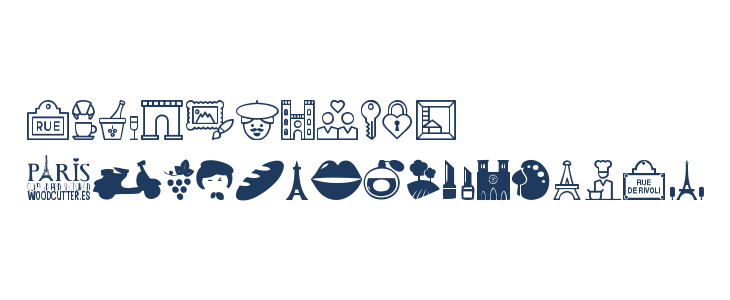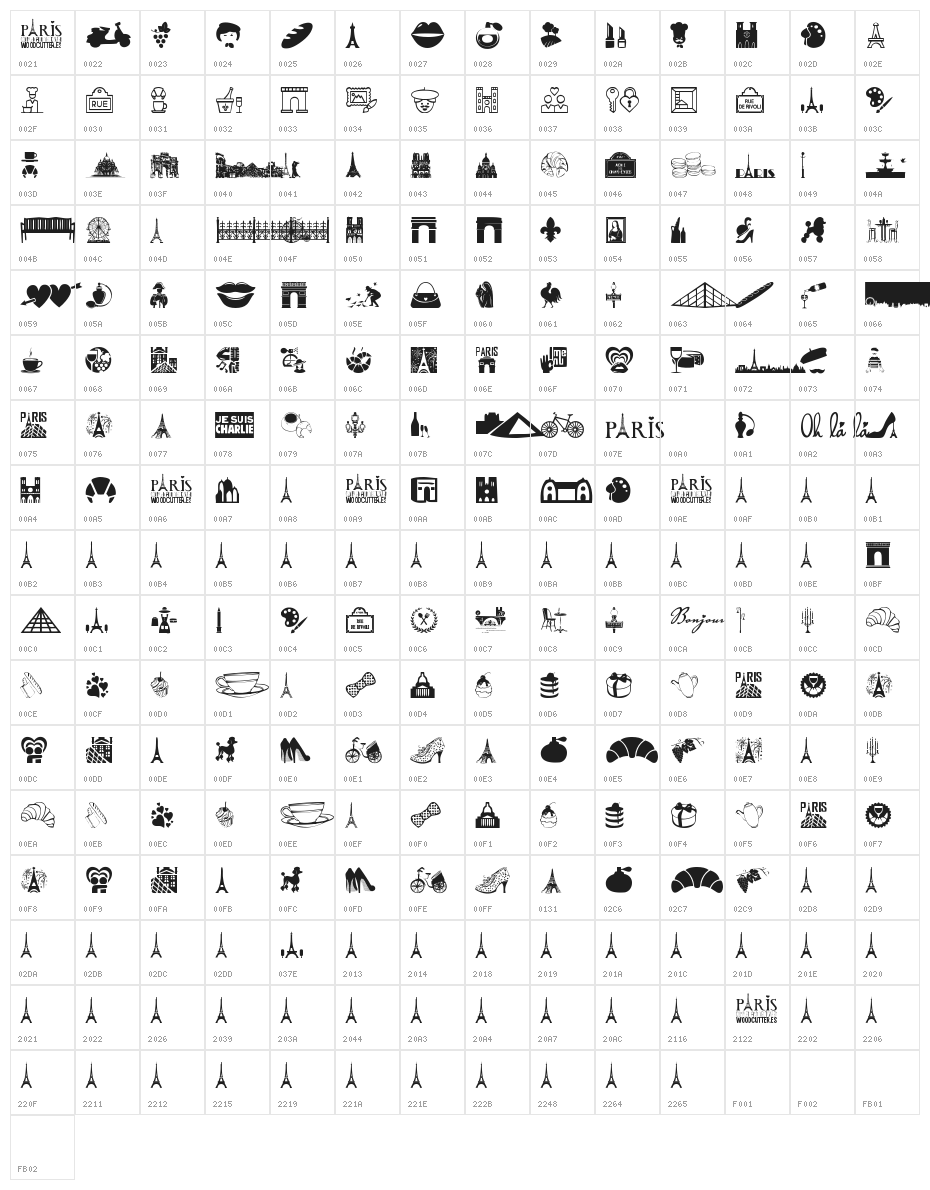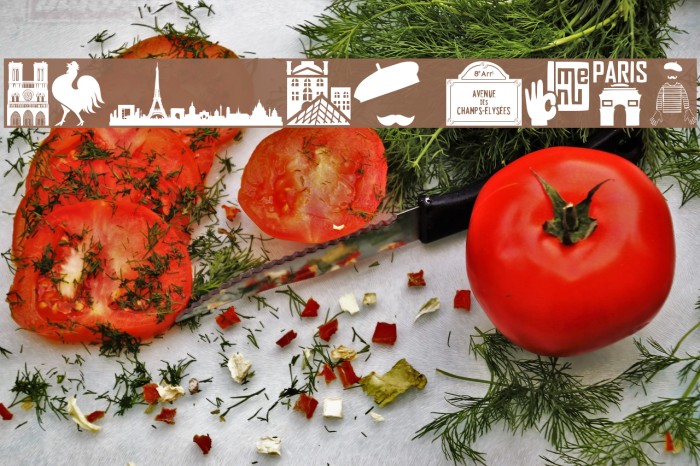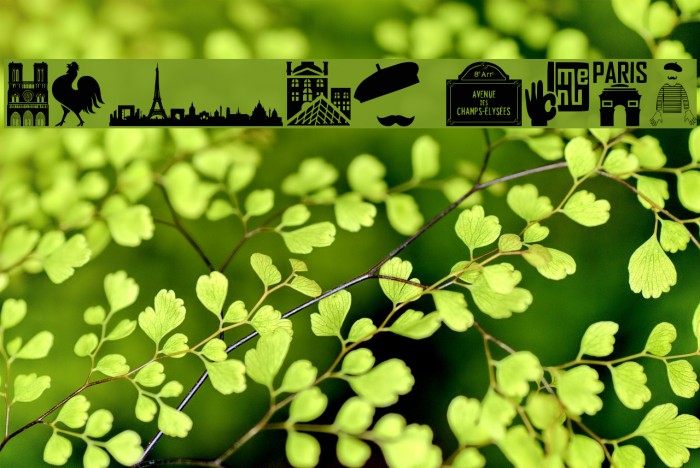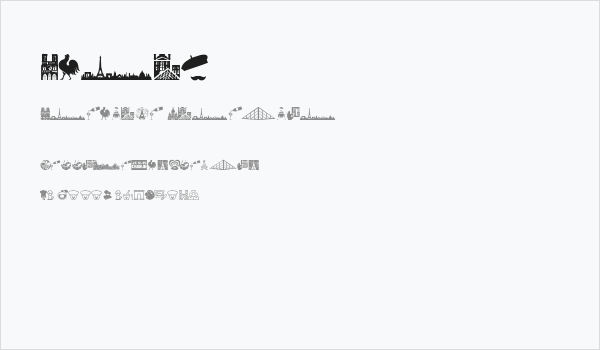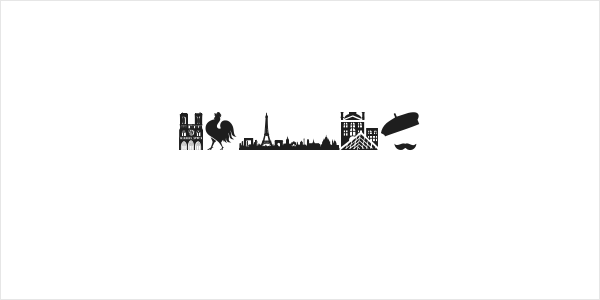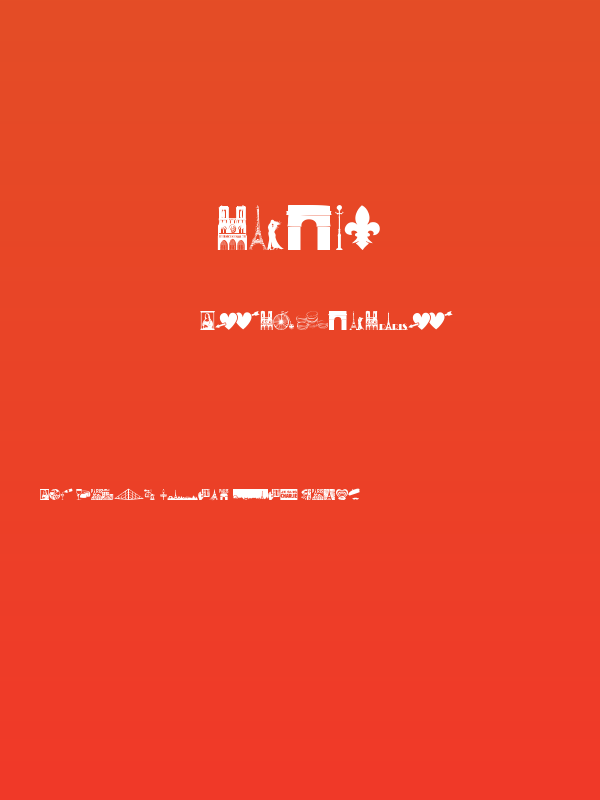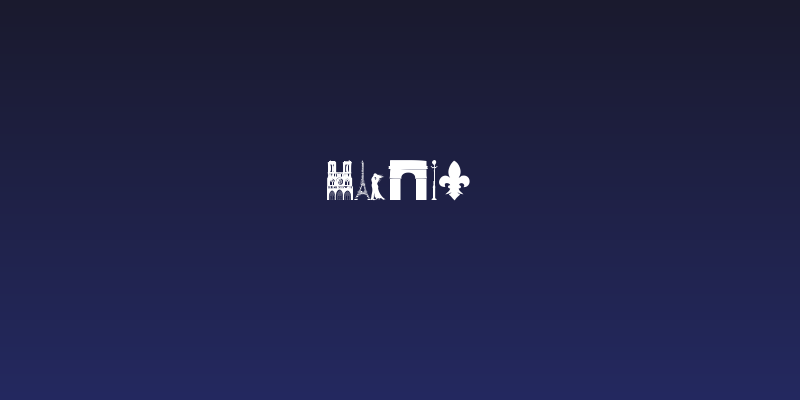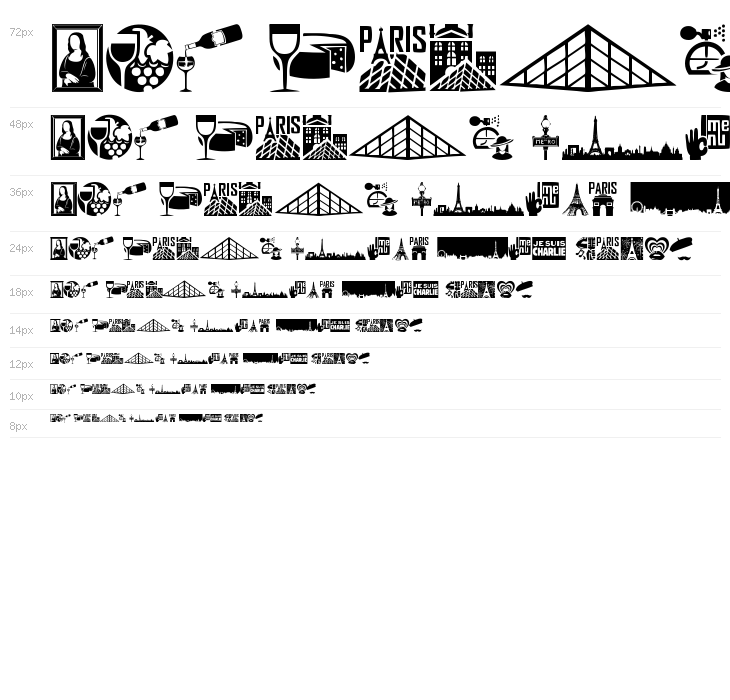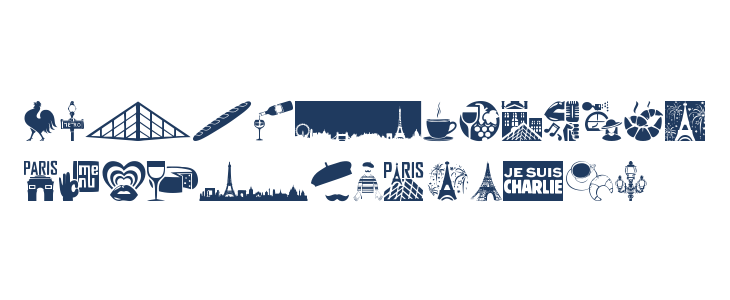
Paris Font
Paris Description
A decorative dingbat font featuring a variety of Paris-themed icons and illustrations, including landmarks, food, cultural symbols, and famous Parisian imagery. Each character is represented by a unique pictogram rather than a traditional letterform.
| Overall Style | Decorative, Thematic, Playful |
| Use Case | Logos, Headlines, Posters, Themed graphics |
| Proposed Projects | Tourism brochures, travel blogs, event invitations, themed posters, educational materials, decorative headings. |